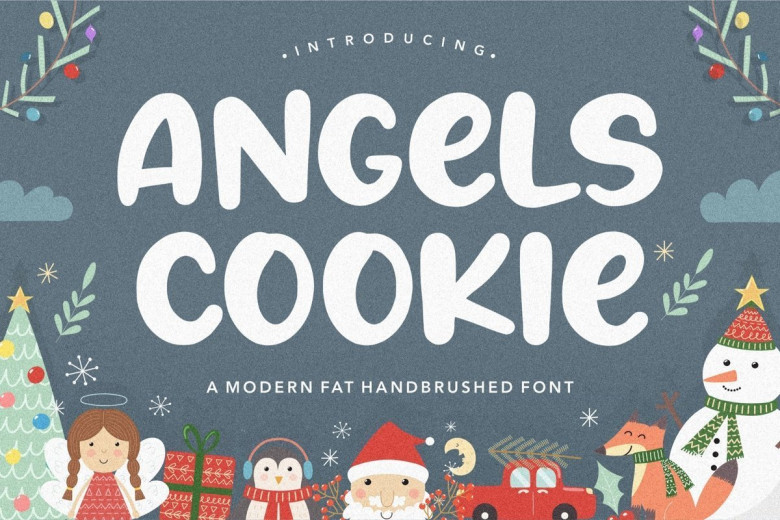
Angels Cookie Bold Script Font
Angels Cookie Bold Script Font is a modern fat hand brushed font. This type of font perfectly made to be applied especially in headlines which is need a standout font, and the other various formal forms.